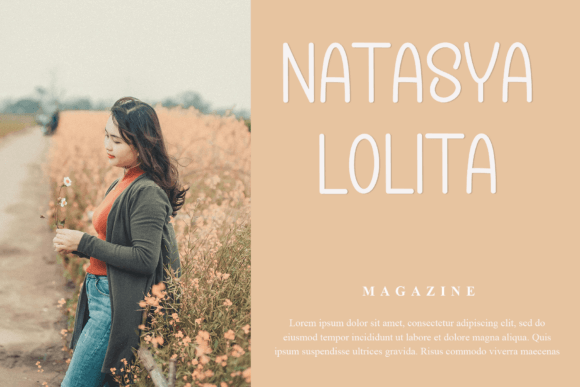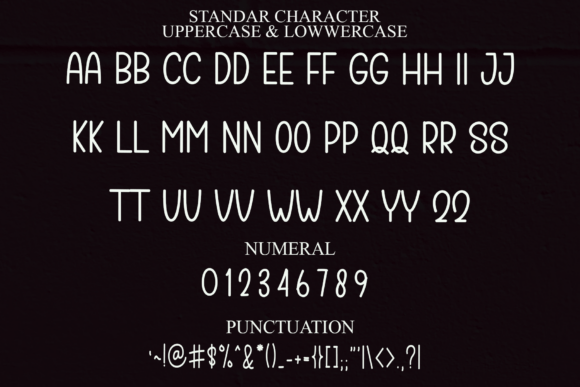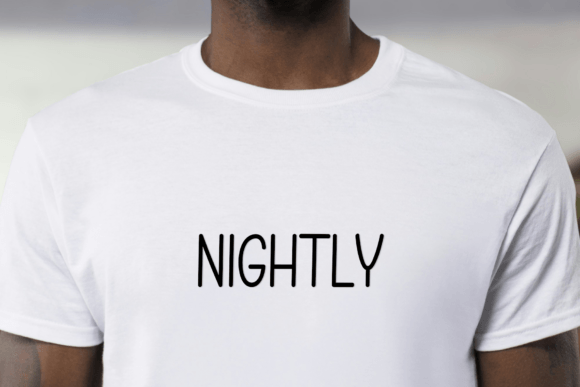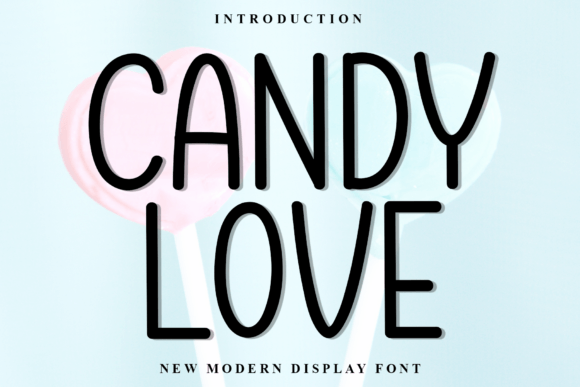
Introduction to Candy Love Font
Candy love is a beautiful and eye-catching font designed with a soft, unique touch.
Its distinctive strokes give it a special character, making it meaningful and versatile for future use With various characters, it’s perfect for design projects, crafts, and other creative works.
Key Features of Candy Love Font
Why Choose Candy Love Font?
Candy Love Font offers exceptional quality and versatility, making it a valuable addition to your design toolkit. Whether you’re creating for personal projects or commercial use, Candy Love Font delivers professional results.